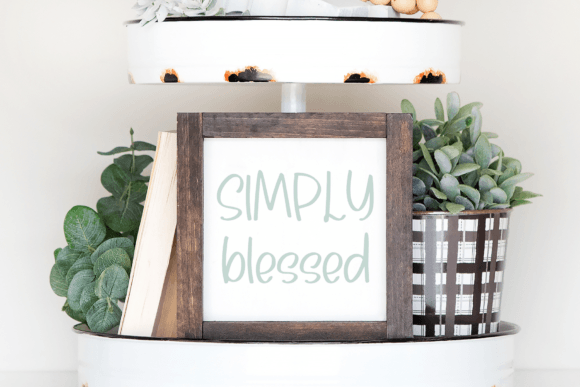
Shortcake Font
Looking for a unique and adorable handwritten font for your next design? Our “Shortcake” font is just what you need!
This cute and whimsical font is perfect for adding a touch of charm to your next crafting project. Whether you’re creating custom cards, personalized gifts, or unique home decor, our handwriting font is sure to make your designs stand out.